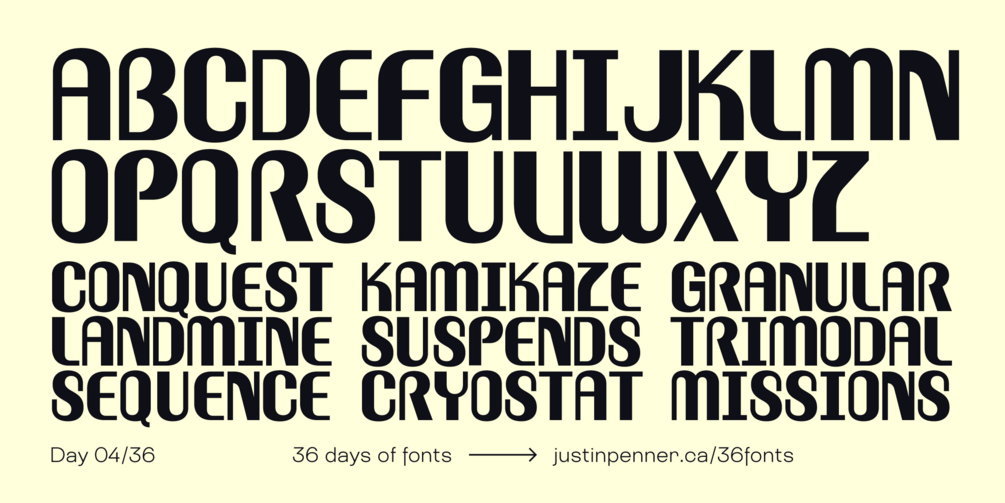
36 Days of Fonts: Day 04
Pulp Science
I was feeling inspired by vintage sci-fi paperbacks and movie posters, so this design is full of quirky geometry and fast curves!